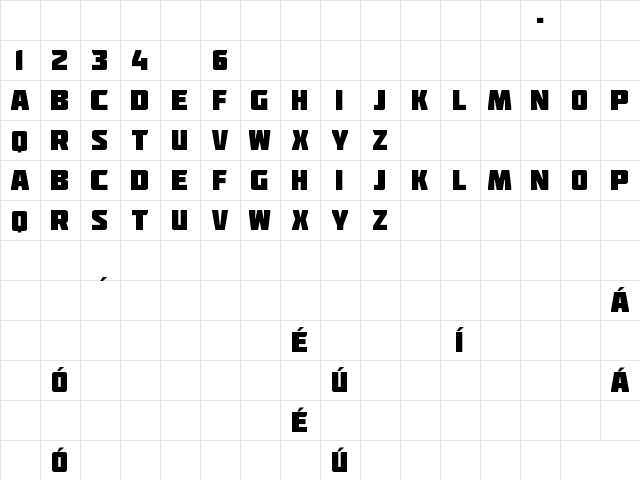
Deadpool Movie Regular Font Preview
Deadpool Movie Regular
Design Context for Deadpool Movie Typeface
Deadpool Movie offers clean, dependable letterforms without strong stylistic allegiance, making it a practical choice for designers who need flexibility.